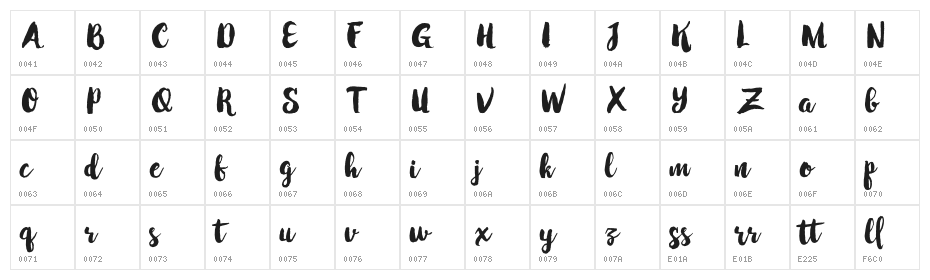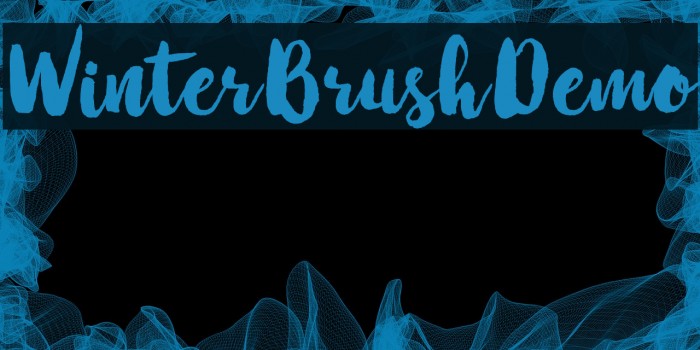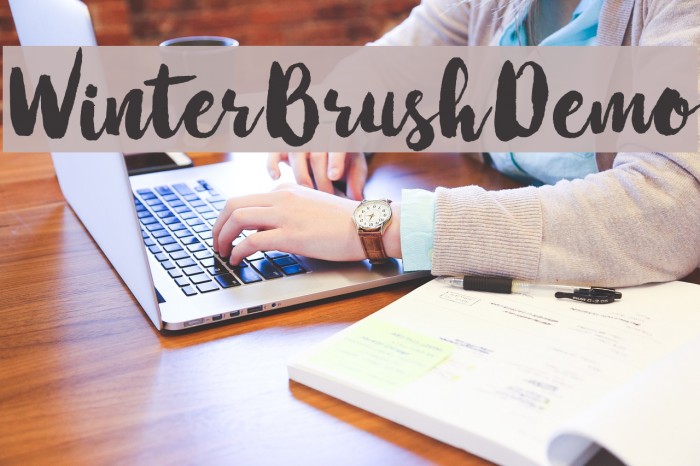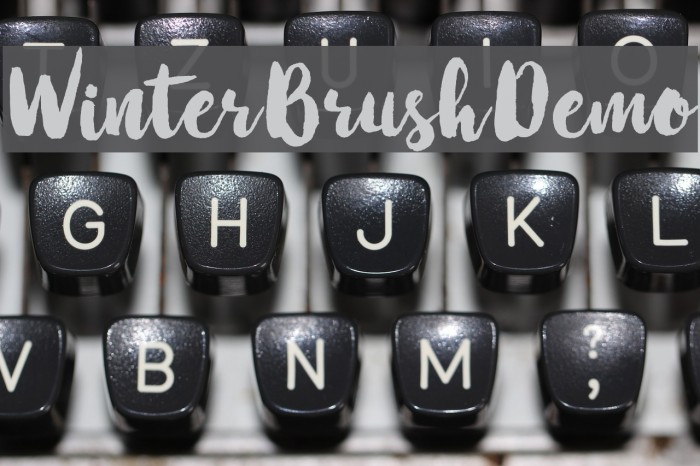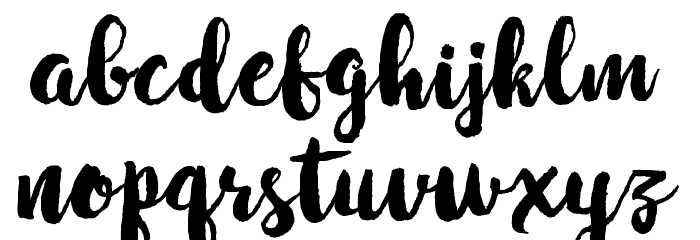
WinterBrushDemo Font
WinterBrushDemo Description
This font exudes a bold and expressive style, reminiscent of hand-painted brush strokes. The characters are dynamic and fluid, with a sense of movement that adds a lively and artistic flair. The uppercase and lowercase letters maintain a consistent flow, while the bold strokes give it a strong presence. The font's organic and textured appearance makes it ideal for projects that require a personal touch or a creative edge. Its unique style is perfect for capturing attention and conveying a sense of individuality.
| Proposed Projects | Ideal for branding, posters, invitations, and any project needing a creative, artistic touch. |